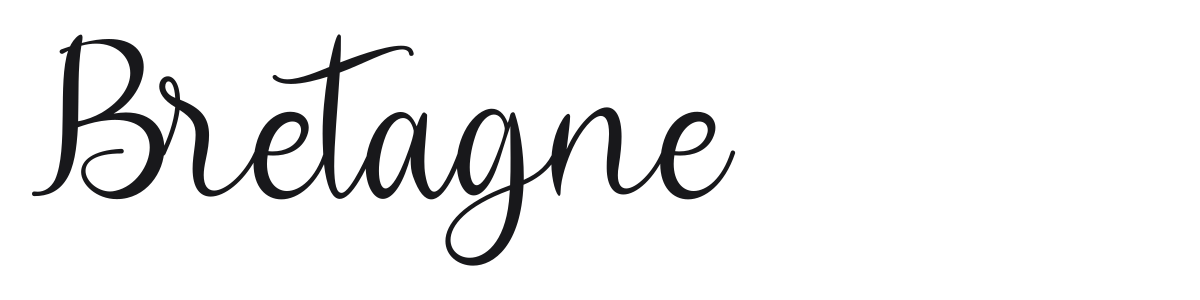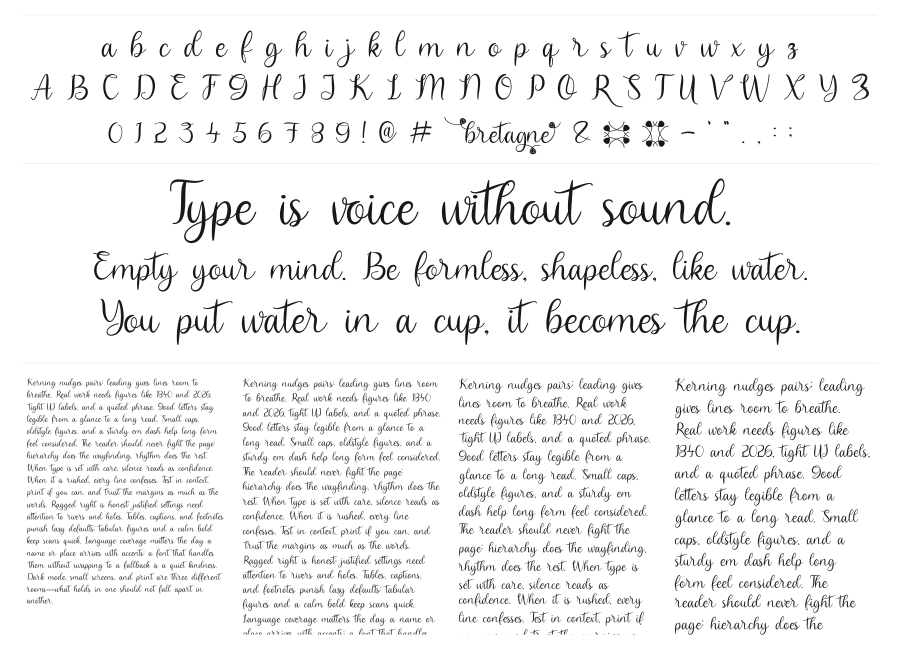
Bretagne
Bretagne is a contemporary casual script with flowing loops, graceful connected strokes, and a warm, approachable elegance. The moderate stroke contrast and generous curves give it the feel of confident hand-lettering without feeling stiff or formal. It works across wedding stationery, packaging, branding, and any project that needs readable charm at display sizes.